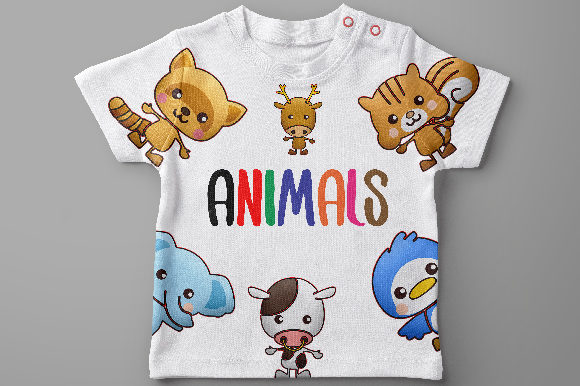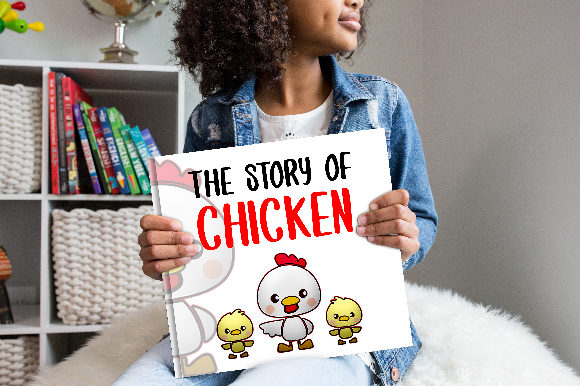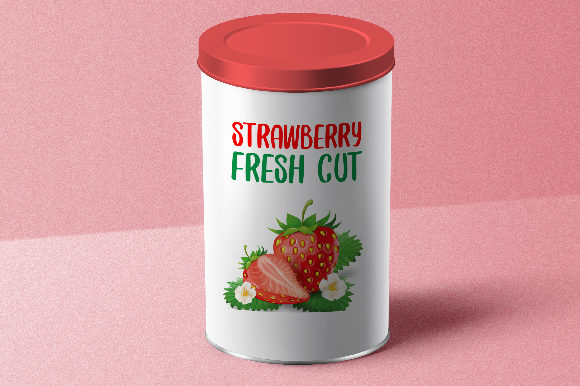
HomeScript FontsAlusans Font Script Fonts Alusans Font FacebookXPinterestWhatsApp Alusans Font Poster 2 Alusans Font Poster 3 Alusans Font Poster 4 About Alusans Font Alusans is a stunning handwritten font with a bold twist. Get inspired by this charming typeface! DOWNLOAD ON CREATIVE FABRICAThis font is sold and delivered by Creative Fabrica. Font Canyon may earn a commission if you buy through this link. People also explored Saturnalia Font Strong Display Sans Family Font Sunday Story Font Rafttel Font Brithaniya Font Afinity Font Storylona Font Camelia Font Charly Sweet Font 343 0 TagsAlusans Font Previous articleBrotherhood Duo FontNext articleOsaka Mustache Font LEAVE A REPLY Cancel reply Comment: Please enter your comment! Name:* Please enter your name here Email:* You have entered an incorrect email address! Please enter your email address here Website: Save my name, email, and website in this browser for the next time I comment. Personal Use Free Heart Personal Use Free Read more about this font Good Times Personal Use Free Read more about this font Angelitta Personal Use Free Read more about this font Oaklevin Personal Use Free Read more about this font BLOG Fonts That Capture the Spirit of New York City New York City is more than just a place—it’s an experience, a rhythm, a visual language... Top 7 Google Fonts Alternatives for Faster and Privacy-Friendly Web Design (2025) Where to Buy American Fonts Online in 2024 Best Fonts for YouTube Videos: Make Your Thumbnails Stand Out